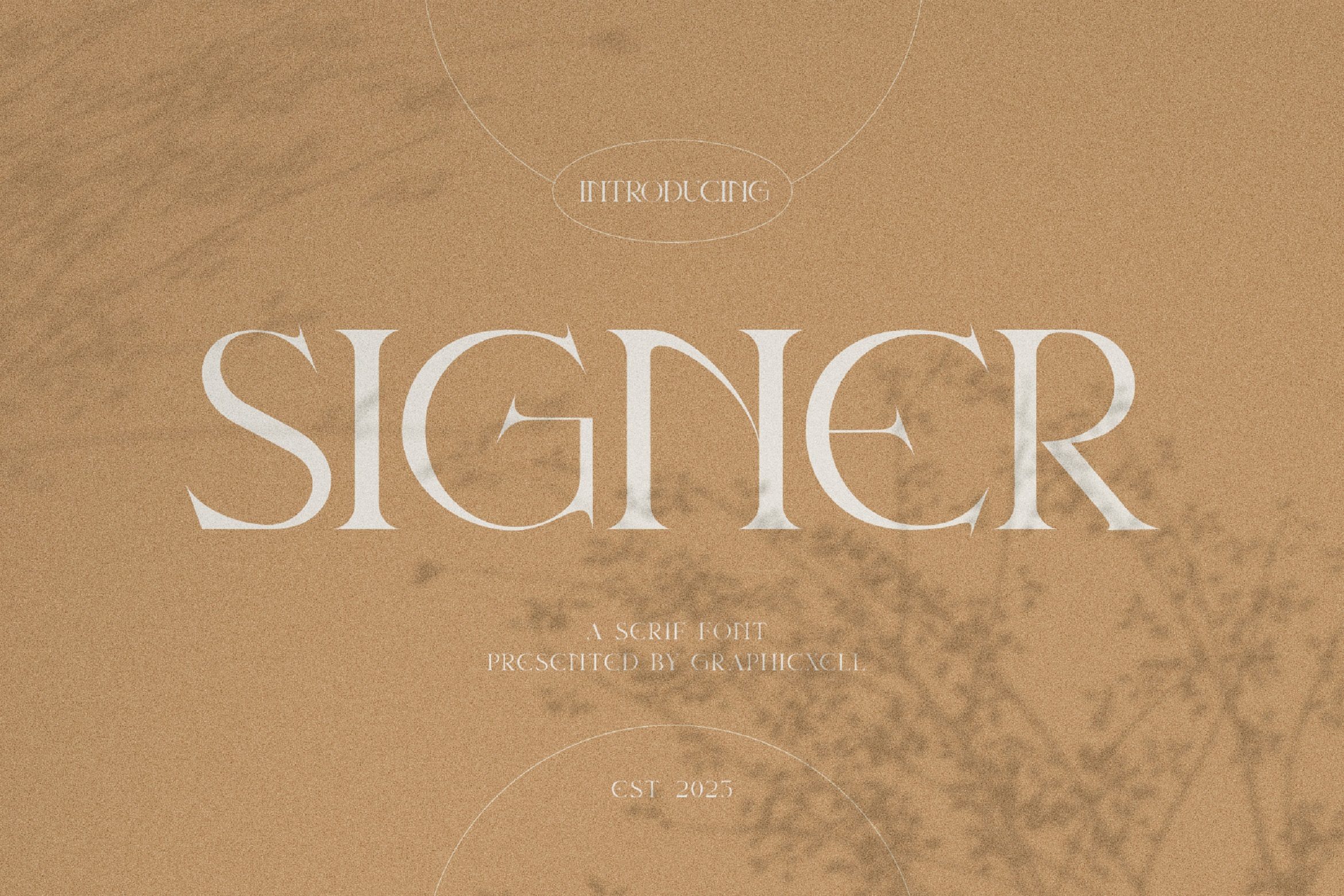
Signer Elegant Serif Font Typeface
Signer Elegant Serif Font Typeface is a new modern serif font that comes to give a perfect alternative for those who are working with typography. This serif font looks elegant because of the clear lines. However, it also has a unique impression with its curved shapes. The pointed edges are its best feature while the bolded lines give it a strong appeal. With a high level of understanding, it offers a versatile use. Signer Elegant Serif Font Typeface is perfect for various projects such as invitations, photography, product designs, watermarks, stationery, wedding designs, logos, branding projects, etc. The unique letterforms make it effective to attract people’s attention. With its elegant look, this font will always be impressive whether its is for a plain text or used to decorate your design. If your design seems to have no appeal, it is time to get and use the Signer Elegant Serif Font Typeface to take it to a higher level.